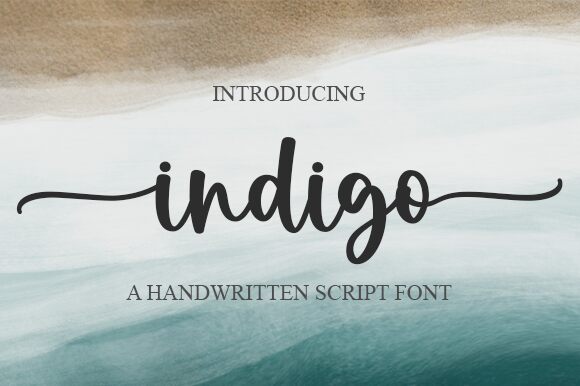
Indigo
Indigo, the perfect handwritten font designed by Graphix Line Studio, is ready to add a touch of elegance and personality to your projects. Its graceful curves and unique style will enhance any design, whether it's for a wedding invitation or a branding project. This semi-bold font comes in various widths, making it suitable for anything from headlines to body text. Indigo will help your content stand out on search engines while captivating your audience. Get creative with Indigo and let your imagination run wild!